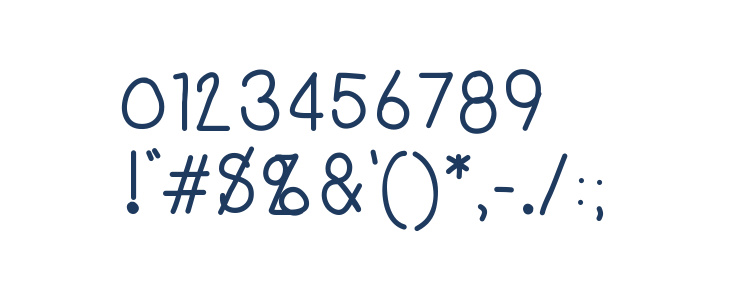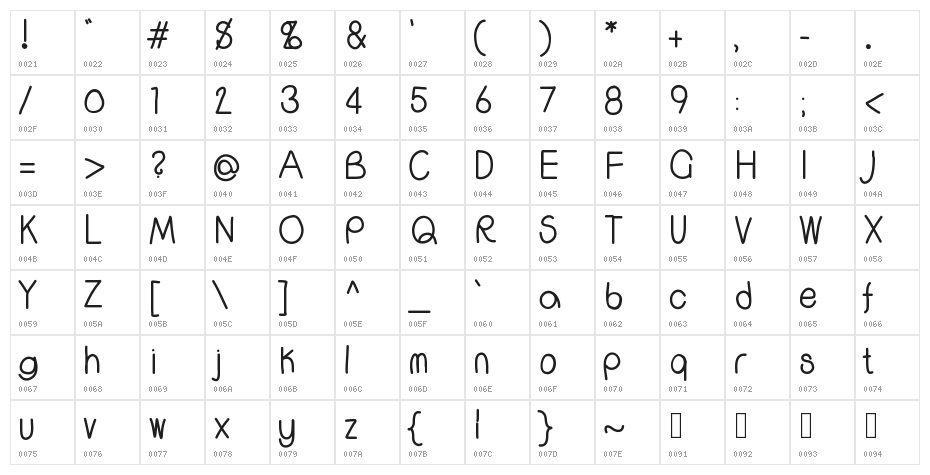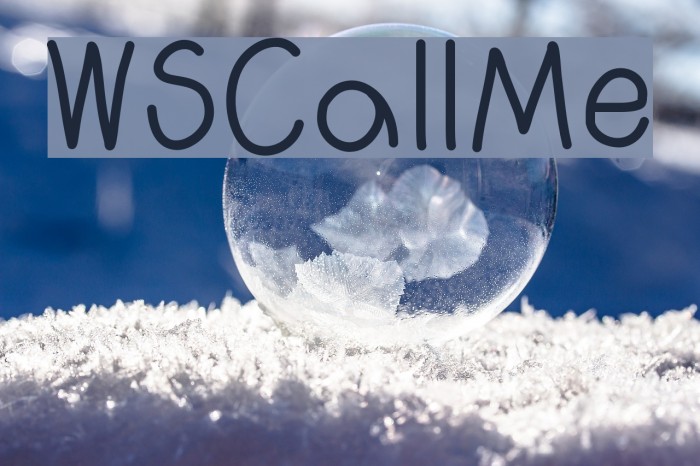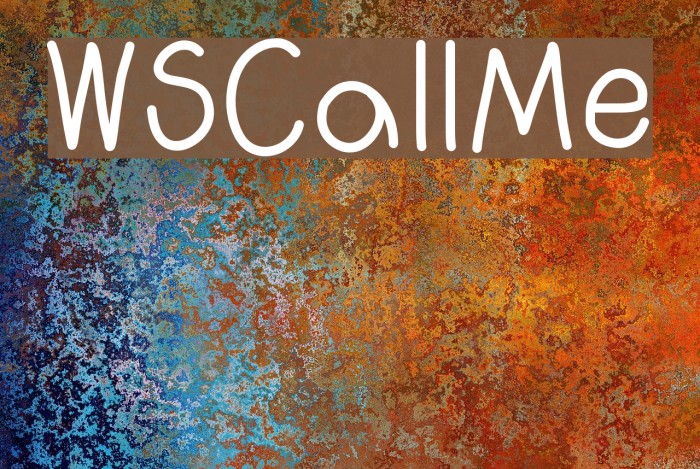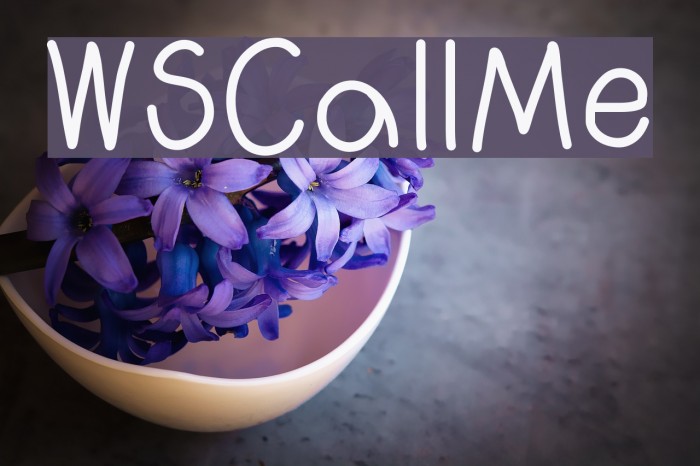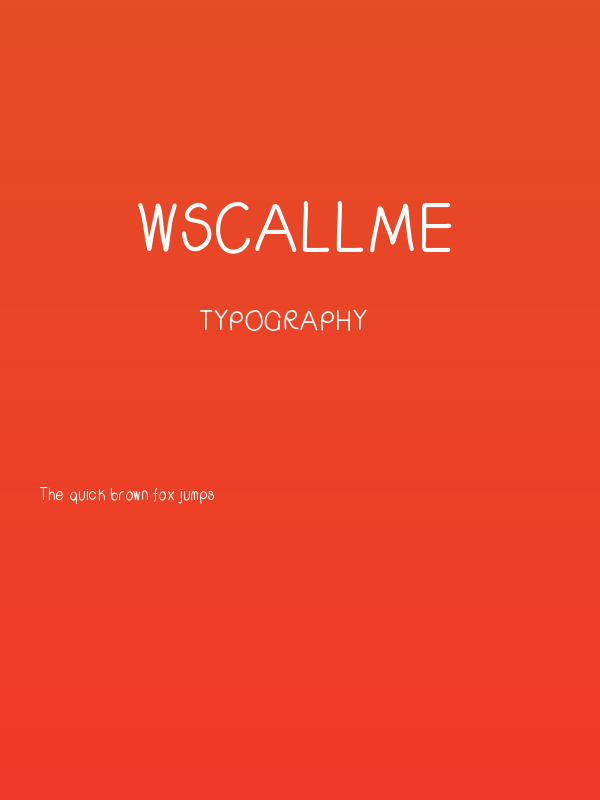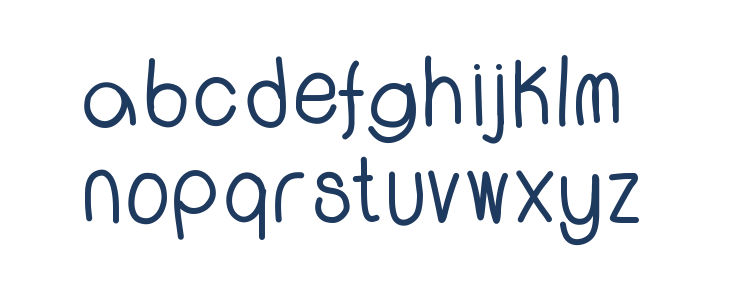
WSCallMe Font
WSCallMe Description
This playful and whimsical font features rounded, smooth edges and a casual, handwritten style. The characters are evenly spaced with a consistent stroke width, giving it a friendly and approachable appearance. The uppercase letters maintain a uniform height, while the lowercase letters exhibit a slight variation in size, adding to its informal charm. Numbers and special characters are designed to match the overall style, ensuring coherence across all elements. This font is ideal for projects that require a touch of fun and creativity, such as children's books, playful branding, or casual invitations.
| Overall Style | Playful |
| Use Case | Headlines, Logos, Informal text |
| Proposed Projects | Children's books, playful branding, casual invitations, greeting cards. |